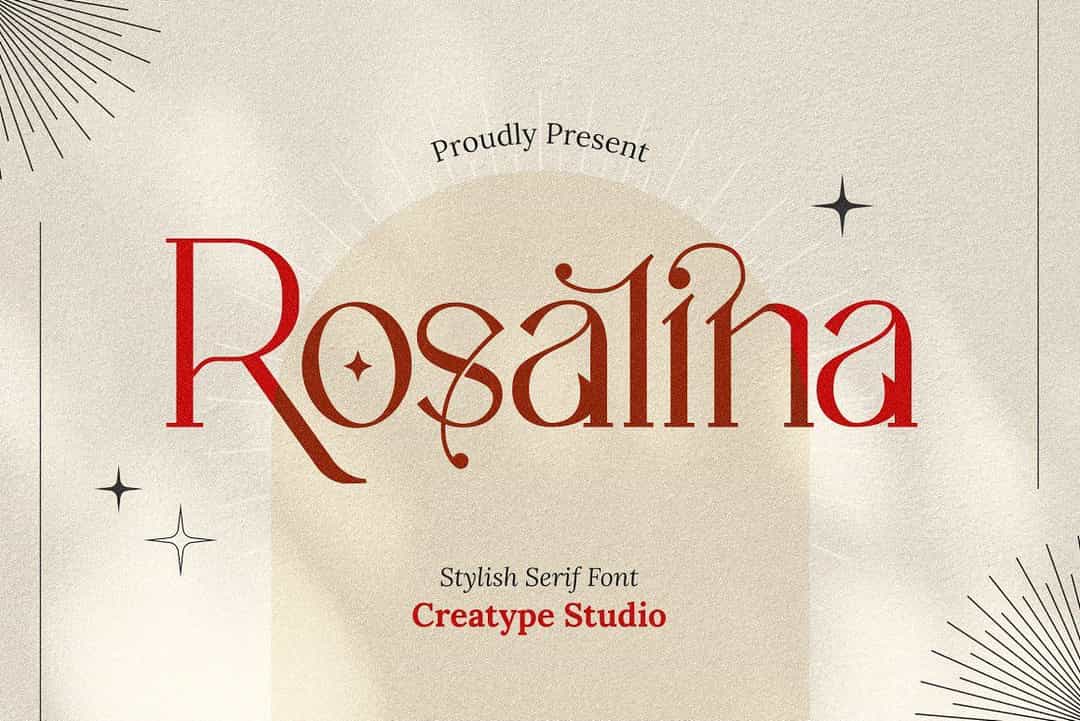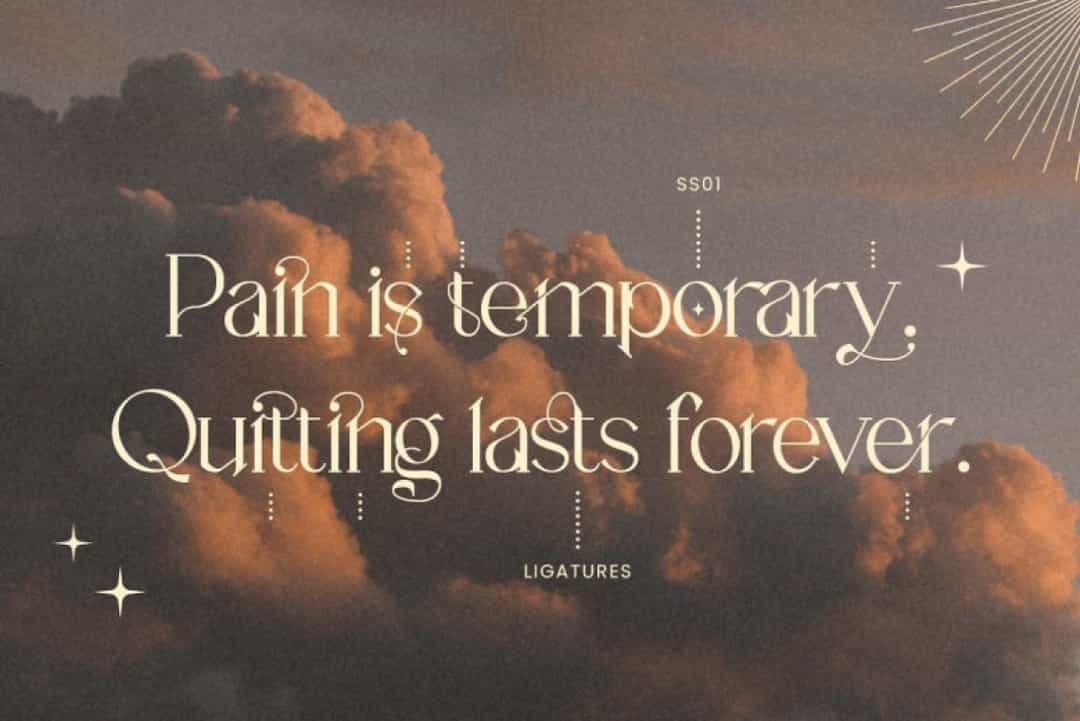
Rosalina can be described as an alluringly spiced up serif typeface that exudes glamour, captivatingly magical qualities, and elegance – this is Rosalina at its core! Created by Creatype for typography use specifically cosmetic brands – it makes Rosalina one of the game changers available today.